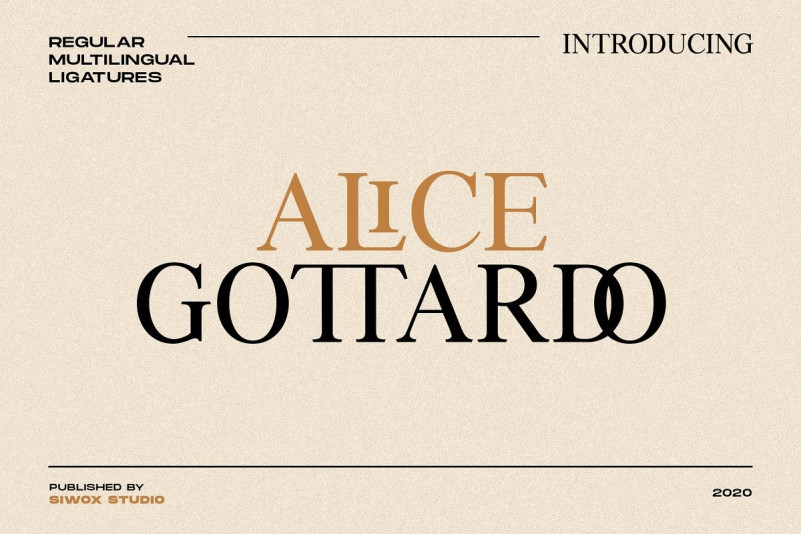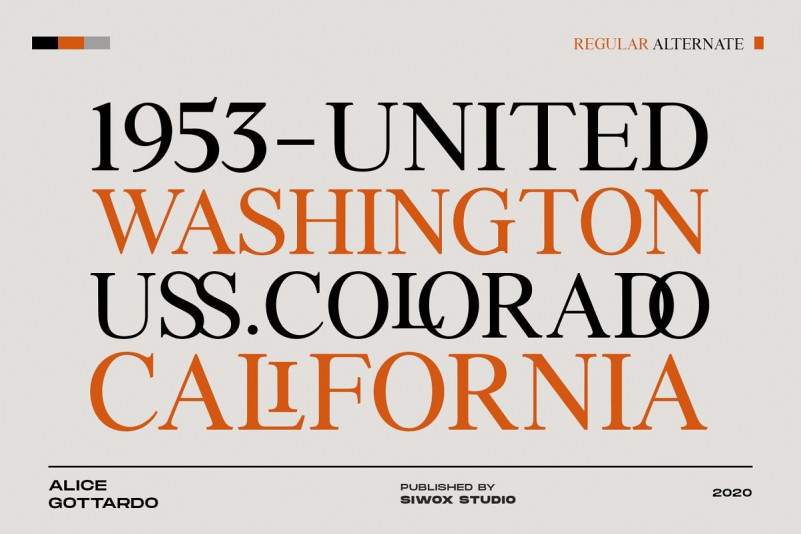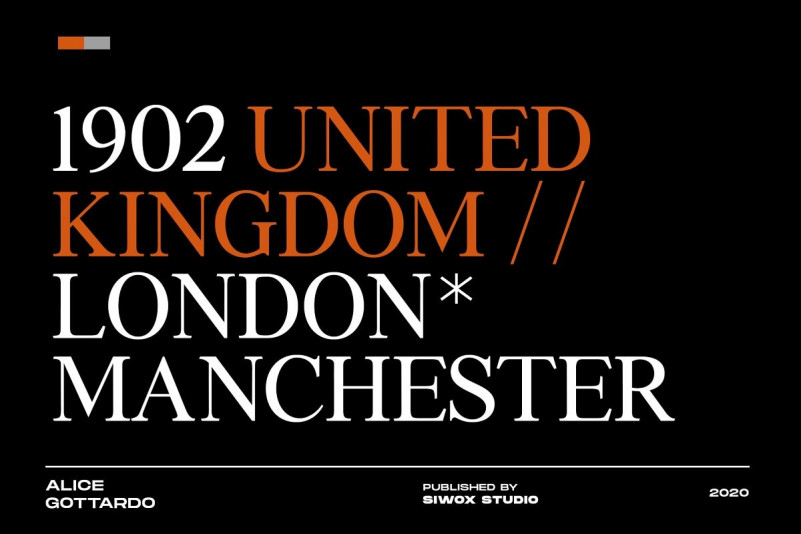
Alice Gottardo Font
Serif typeface with Capitals letters and ligatures also complete multilingual glyphs. Alice Gottardo come with Regular style, it will make this typeface can be used in all design projects and works perfectly for pairing with script typeface or handmade fonts, Headlines, Posters, Packaging, T-shirts, Postcards, Invitation, Wedding Sign, Sign Painting, Signboard, and much more.
Although this font is only available in capital letters, all letters will work fine even if you type in lowercase or uppercase format. Likewise with ligatures. All glyphs are well coded so they will work without having to activate the Caps Lock feature on the keyboard.